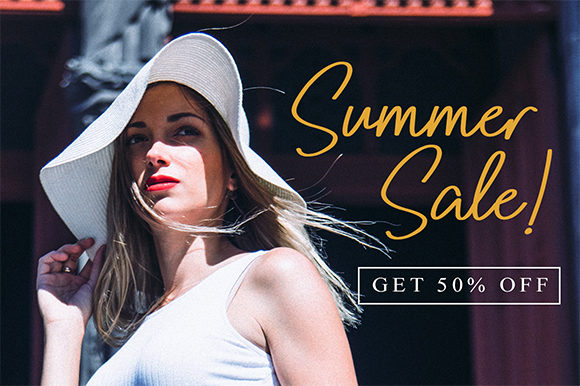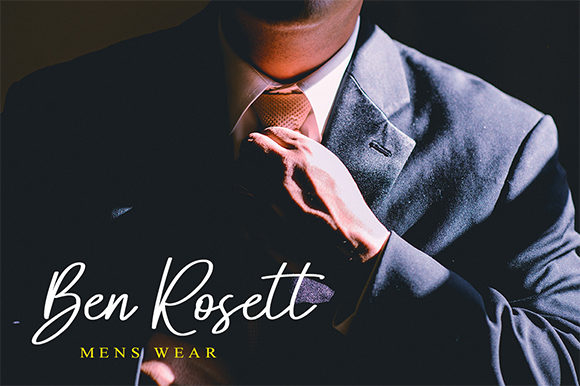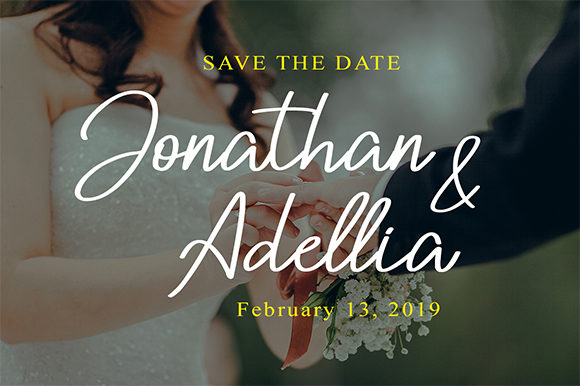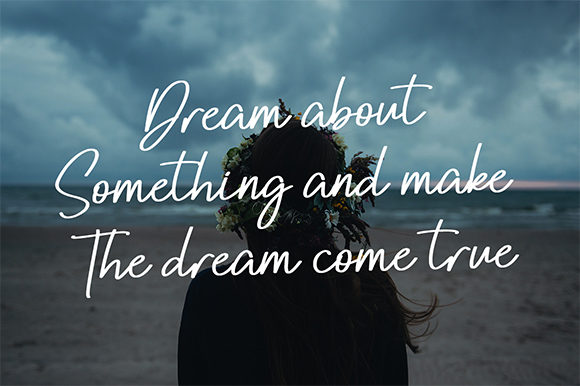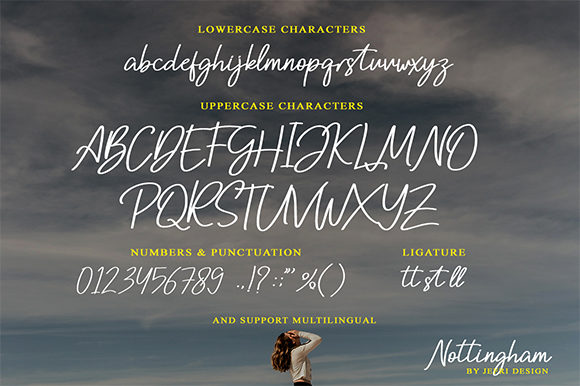
Introduction to Nottingham Script Font
As designers, we’ve all been there – stuck in front of a blank page, staring at a blank canvas, searching for that perfect font to bring our creative project to life. And then, like a ray of sunshine, you stumble upon the perfect design resource – a font that speaks to you, that resonates with your vision. For me, that font was the Nottingham Script Font – a charming and bold handwritten font with a unique style that instantly captured my heart.
What makes the Nottingham Script Font truly special is its classic feel, which makes it perfect for designers looking for a high-quality font that exudes sophistication and elegance. With a free download available, you can easily integrate this design treasure into your next project, whether it’s a logo, a poster, or a social media graphic. And the best part? A transparent background allows for seamless integration with any design element.
Key Features of Nottingham Script Font
- Handwritten and elegant script font ideal for creative projects and design resources.
- High-quality design, perfect for use on a transparent background or with a subtle texture.
- Features a large character set, including uppercase and lowercase letters, numbers, and punctuation marks, making it suitable for a wide range of applications.
- Unique characteristics include a flowing, cursive style with subtle flourishes, adding a touch of elegance to any design project.
Honest Review: Nottingham Script Font
I recently had the chance to work with the Nottingham Script Font, and I must say it’s been a delightful experience. This beautiful font is perfect for designers looking for a high-quality, elegant script to elevate their creative projects.
- ✨ The font’s high-quality design makes it perfect for use in creative projects, from invitations to branding materials.
- ⚠️ The font may not be suitable for use in headings or titles due to its cursive nature, which can be difficult to read at large font sizes.
Overall, I’m very impressed with the Nottingham Script Font. Its elegant design and high-quality construction make it a valuable addition to any designer’s toolkit. While it may have some limitations, it’s a great choice for designers working on creative projects that require a touch of sophistication.
For a more advanced design experience, use the Nottingham Script Font in Adobe Photoshop or Illustrator. This font is ideal for creating intricate, hand-written style text. Apply the font to your design elements and adjust the opacity to achieve the desired level of transparency.
The Nottingham Script Font is perfect for wedding invitations, birthday cards, and other creative projects where a hand-written style is desired. Its high-quality design and transparent background make it an ideal choice for designers and non-designers alike.